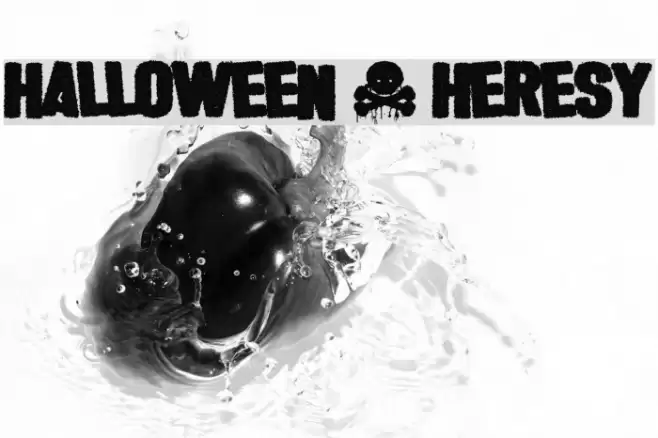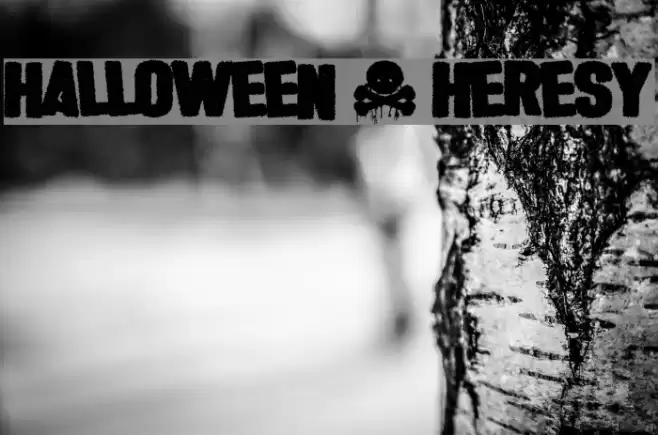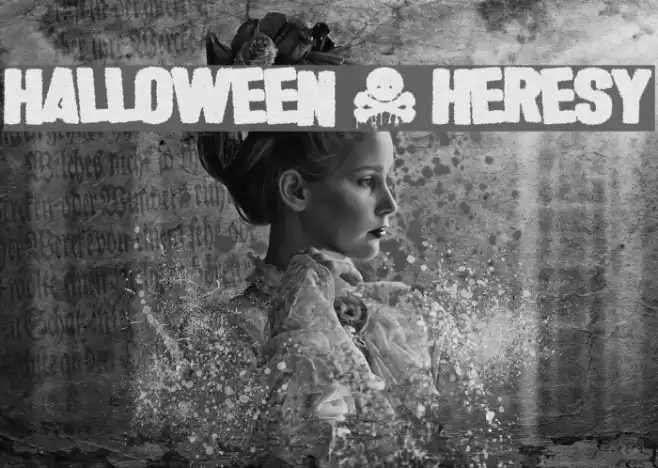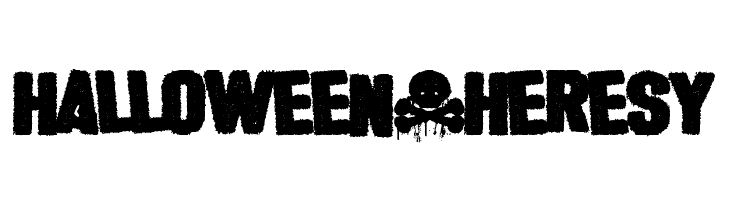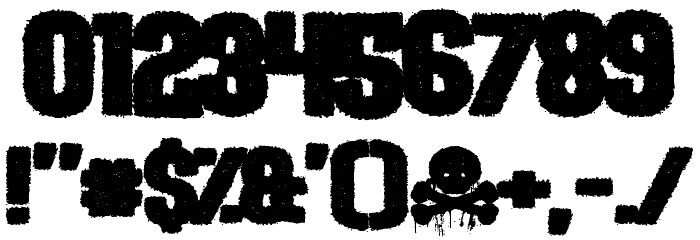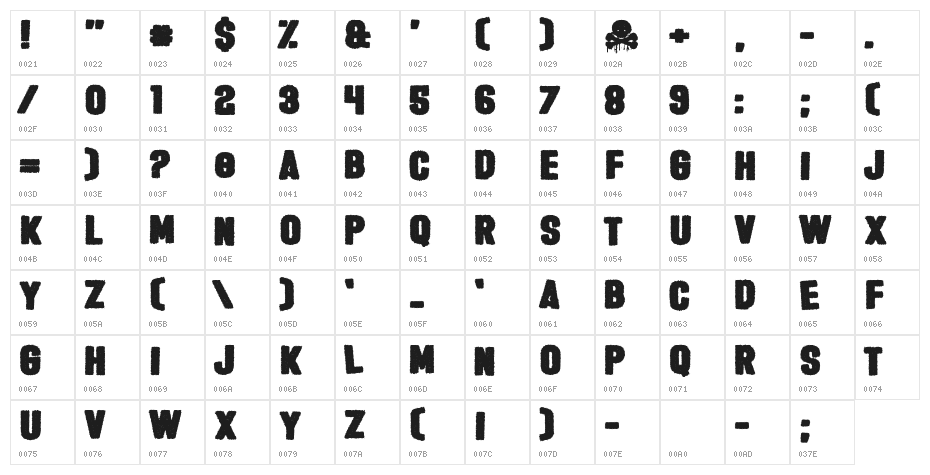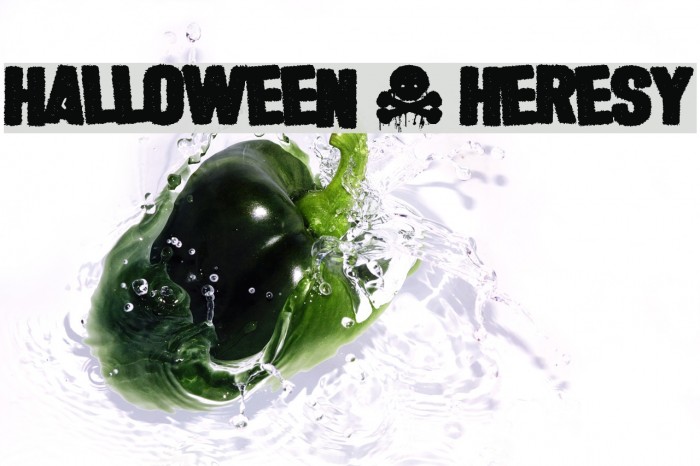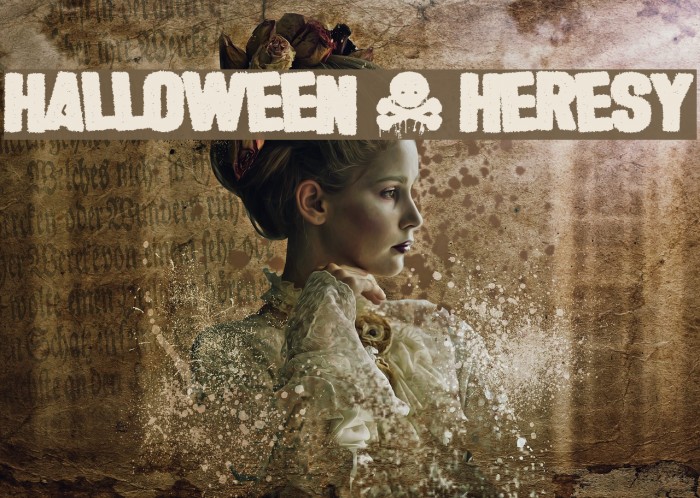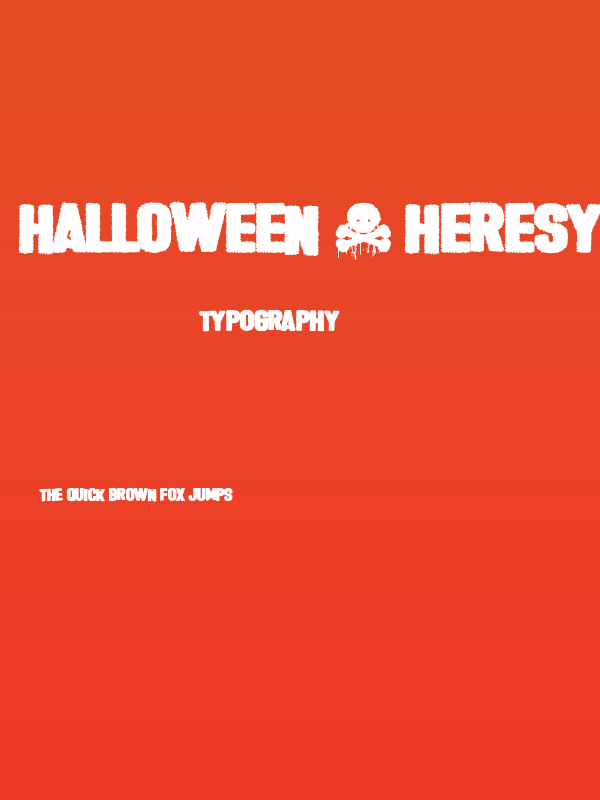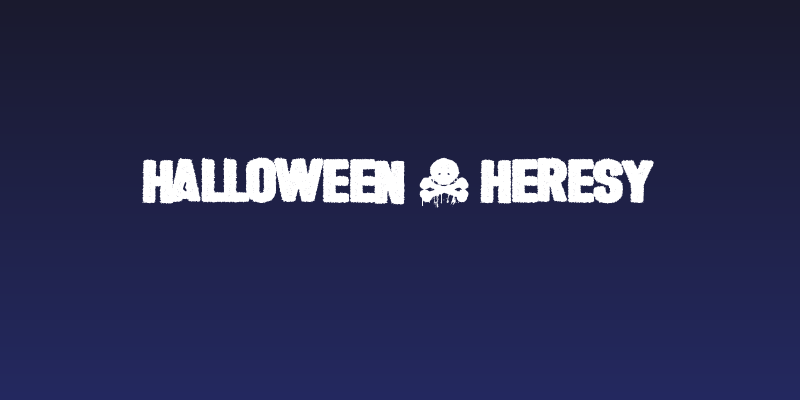
Halloween * Heresy Font
Halloween * Heresy Description
This font exudes a bold and gritty aesthetic, perfect for creating a spooky or eerie atmosphere. The characters are heavily textured, resembling a distressed or decayed surface, which adds to its unique and eye-catching appeal. The uppercase and lowercase letters maintain a consistent style, with thick strokes and a rough, uneven finish that gives them a hand-crafted look. The numbers and special characters follow the same design principles, ensuring a cohesive appearance across all elements. This font is ideal for Halloween-themed projects or any design that requires a touch of horror or mystery.
A bold, textured font with a gritty, distressed style ideal for spooky themes from Distorted Eroded fonts.
- Proposed Projects: Perfect for Halloween posters, horror movie titles, haunted house flyers, and themed event invitations.